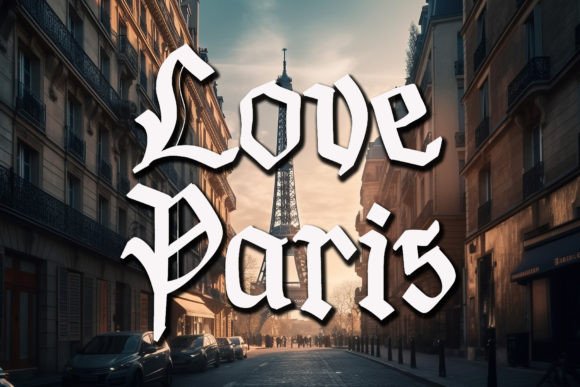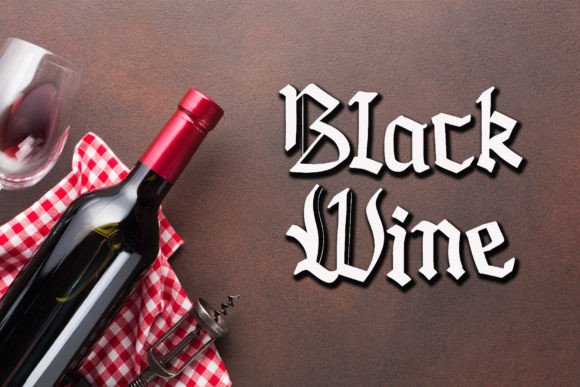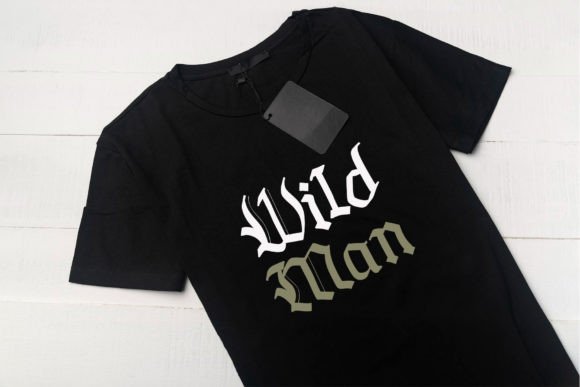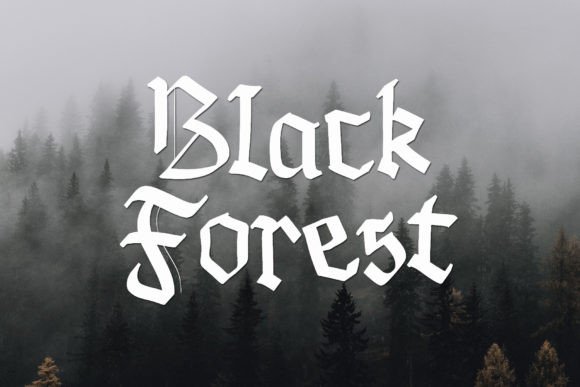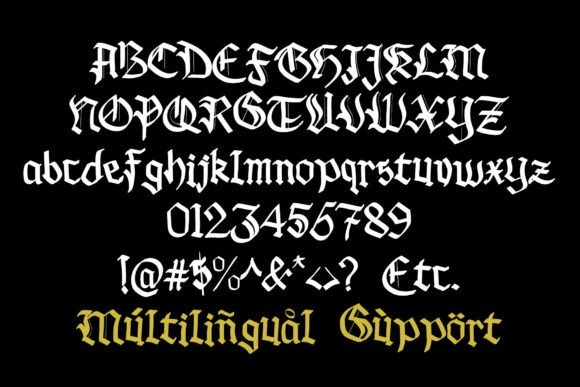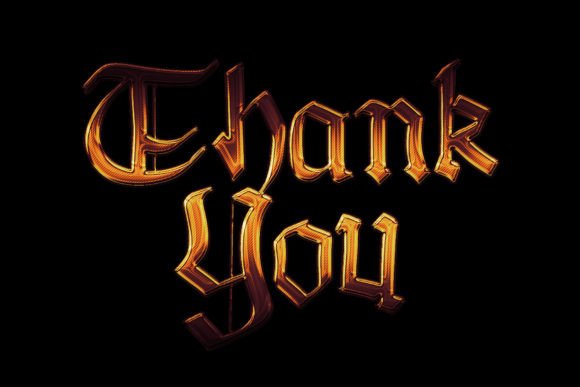
Discover the Elegance of Black Lonthe Font: A Timeless Blackletter Typeface
In the world of typography, few fonts manage to capture the essence of traditional calligraphy while infusing it with a modern twist. Black Lonthe font is one such exquisite blackletter typeface that exudes timeless elegance, making it a standout choice for designers and crafters looking to add a touch of sophistication to their projects. With its bold and ornate strokes, Black Lonthe is perfect for creating eye-catching titles, logos, and invitations that leave a lasting impression.
The Characteristics of Black Lonthe Font
Black Lonthe is characterized by its sleek and sophisticated design. The font features bold, dramatic strokes that are reminiscent of traditional blackletter calligraphy. However, what sets Black Lonthe apart is its modern interpretation of classic calligraphic elements. The font’s lines are clean, and its ornate details are intricately designed, giving it a unique and contemporary feel.
One of the key features of Black Lonthe is its versatility. The font can be used in a variety of design projects, from elegant wedding invitations and sophisticated business cards to bold logo designs and eye-catching titles. Its ability to adapt to different design needs makes it a valuable addition to any designer’s font collection.
Uses of Black Lonthe Font
Black Lonthe’s distinctive style makes it suitable for a wide range of applications. Here are some of the most popular uses of this elegant font:
- Wedding Invitations and Stationery: The font’s elegant and sophisticated design makes it perfect for wedding invitations, save-the-date cards, and other stationery items. It adds a touch of luxury and romance to any wedding-related design.
- Logo Design: Black Lonthe can be used to create unique and memorable logos for businesses, especially those in the luxury, fashion, and beauty industries. Its bold and ornate strokes help in creating a lasting impression.
- Typography Design: Designers can use Black Lonthe to create stunning typographic designs, quotes, and posters. The font’s dramatic strokes and elegant details make any text stand out.
- Packaging Design: For brands looking to add a touch of elegance to their packaging, Black Lonthe can be a great choice. It works well on luxury product packaging, adding a sophisticated feel to the brand’s image.
Why Choose Black Lonthe Font?
There are several reasons why designers and crafters might choose Black Lonthe over other fonts:
- Timeless Appeal: Black Lonthe has a classic appeal that never goes out of style. Its design is inspired by traditional calligraphy, but it has a modern twist that keeps it relevant.
- Ease of Use: Despite its ornate appearance, Black Lonthe is surprisingly easy to read and use in various design projects. Its clarity makes it suitable for both headings and body text.
- Versatility: As mentioned earlier, Black Lonthe can be used in a variety of projects, making it a versatile addition to any designer’s toolkit.
- Unique Style: In a sea of generic fonts, Black Lonthe stands out with its unique and distinctive style. It can help designers create work that is not only elegant but also memorable.
Tips for Using Black Lonthe Font Effectively
To get the most out of Black Lonthe, here are some tips for using it effectively in your designs:
- Pair with Simpler Fonts: When using Black Lonthe for headings or titles, consider pairing it with a simpler font for the body text. This contrast can help in creating a balanced and visually appealing design.
- Experiment with Colors: While Black Lonthe looks stunning in its traditional black color, don’t be afraid to experiment with other colors. Gold, navy blue, and burgundy can add an extra layer of elegance to your designs.
- Pay Attention to Size: The ornate details of Black Lonthe mean that it may not be suitable for very small sizes. Make sure to use it at sizes where its details can be appreciated.
| Author | Letterafa Studio |
Black Lonthe font is a beautiful and elegant blackletter typeface that brings a touch of timeless sophistication to any design project. Its bold and ornate strokes, combined with its modern twist, make it a versatile and unique font suitable for a wide range of applications. Whether you’re designing wedding invitations, logos, or typographic posters, Black Lonthe can help you create stunning and memorable designs. With its ease of use, unique style, and timeless appeal, Black Lonthe is a font that every designer and crafter should consider adding to their collection.